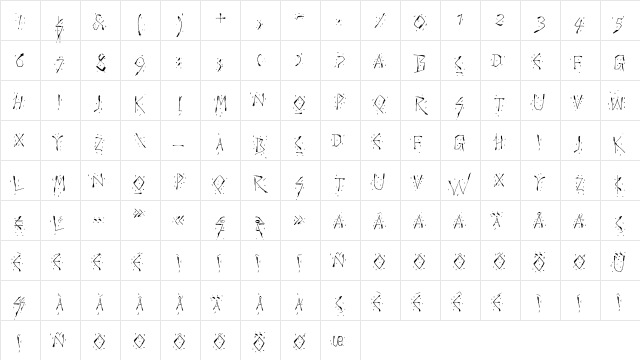
Warlord Regular
Design Context for Warlord Typeface
Warlord is a composed and adaptable typeface that performs quietly and consistently across a wide range of design contexts.